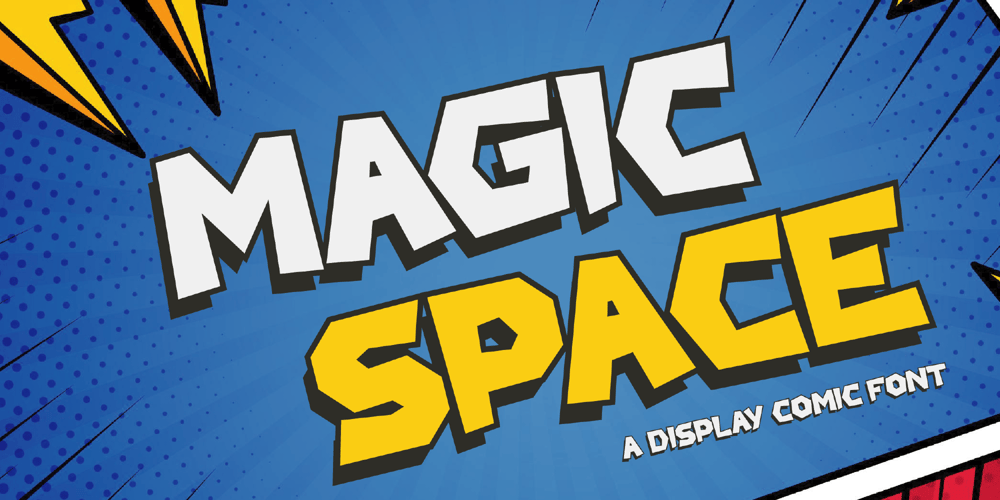
Magic Space Font Family was designed by Achmad Yani and published by Flawlessandco. Magic Space contains 2 styles and family package options. Magic Space is a Playful Comic Display Font. Embark on a whimsical journey through the cosmos with “Magic Space,” a captivating comic display font that adds an enchanting touch to your designs.There’s some connected letters and some alternates that suitable for any graphic designs.This font support for some multilingual. Also contains uppercase A-Z and lowercase a-z, alternate character, numbers 0-9, and some punctuation.If you need help, just write me! Thanks so much for checking out my shop!